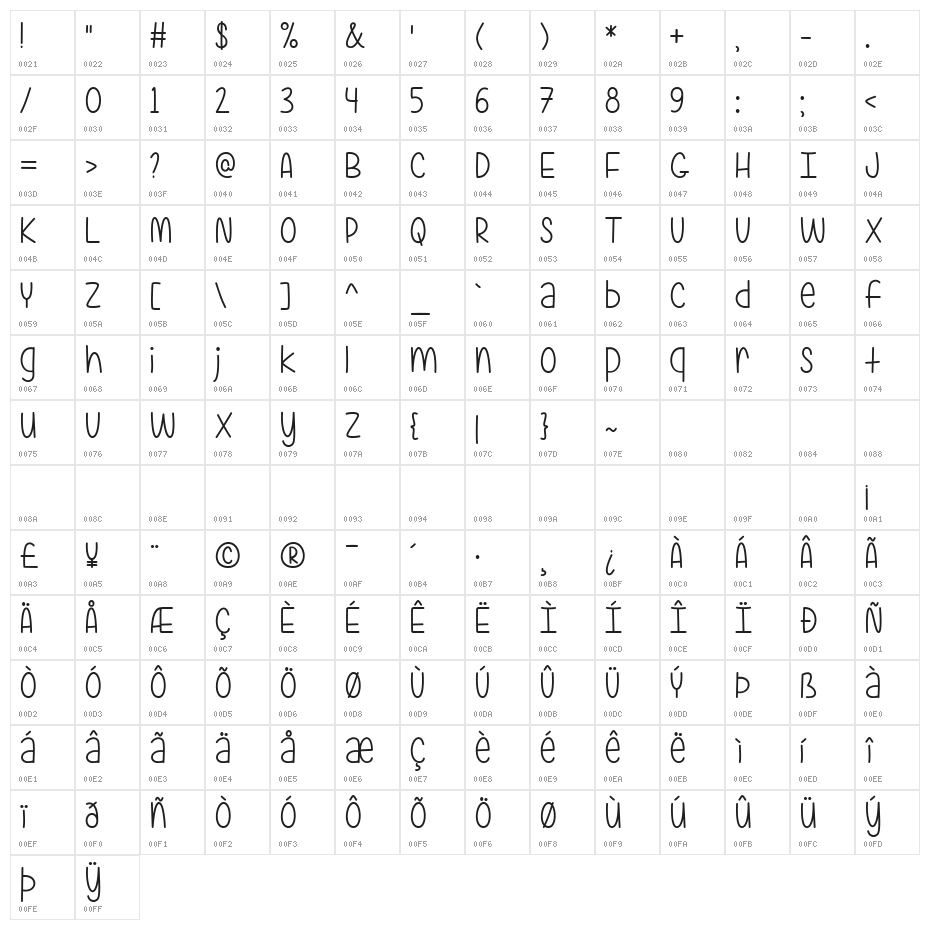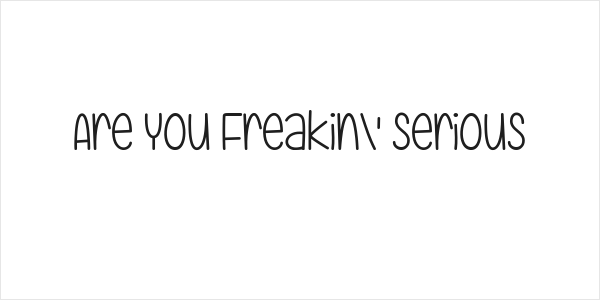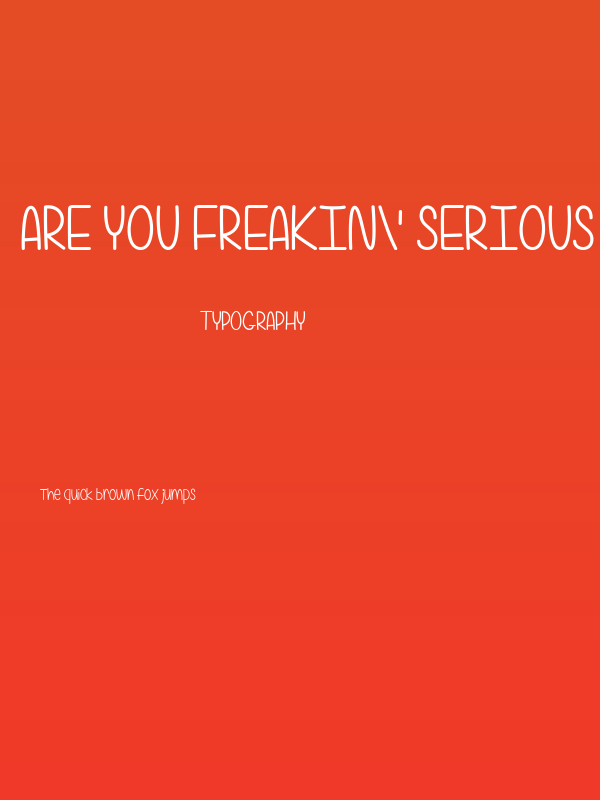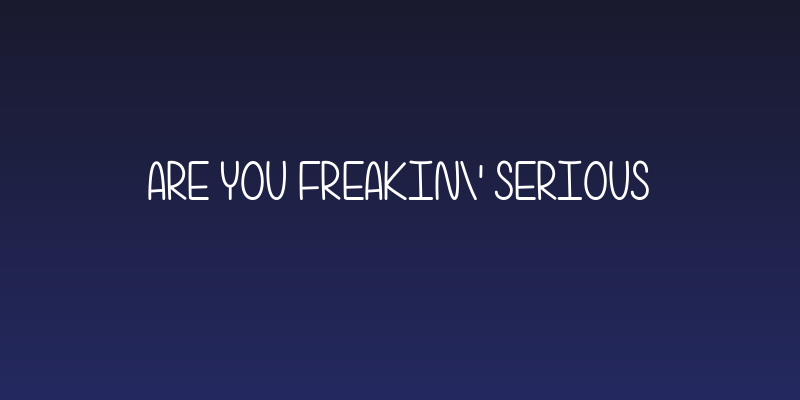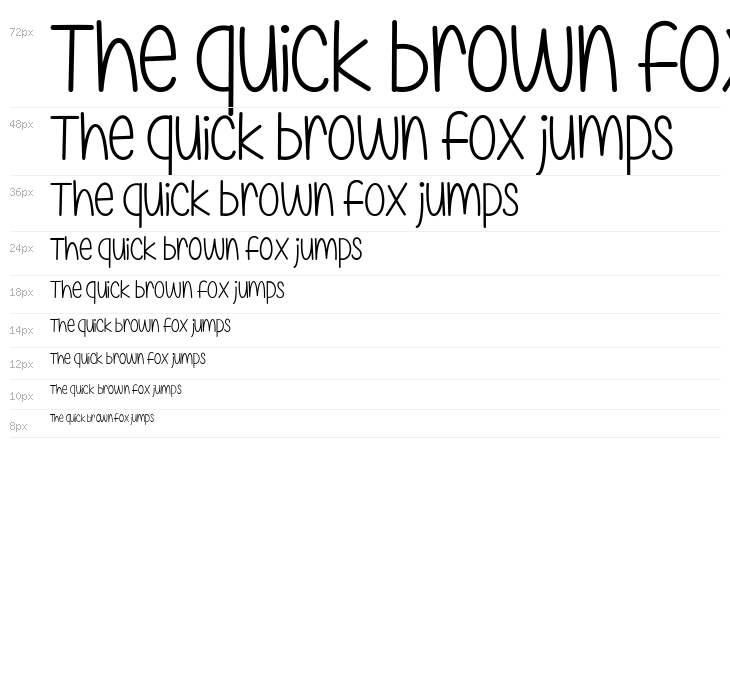
Are You Freakin' Serious Font
Are You Freakin' Serious Description
This playful and whimsical font features rounded, smooth curves and a casual, handwritten style. The letters are evenly spaced with a consistent stroke width, giving it a friendly and approachable appearance. It maintains a uniform height across both uppercase and lowercase letters, enhancing readability. The numerals and special characters are designed to match the overall aesthetic, making it versatile for various uses. Its simplicity and charm make it suitable for informal and creative projects.
Overall StyleCasual, Playful
Use CaseHeadlines, Informal text, Creative projects
Proposed ProjectsIdeal for children's books, greeting cards, playful branding, and social media graphics.